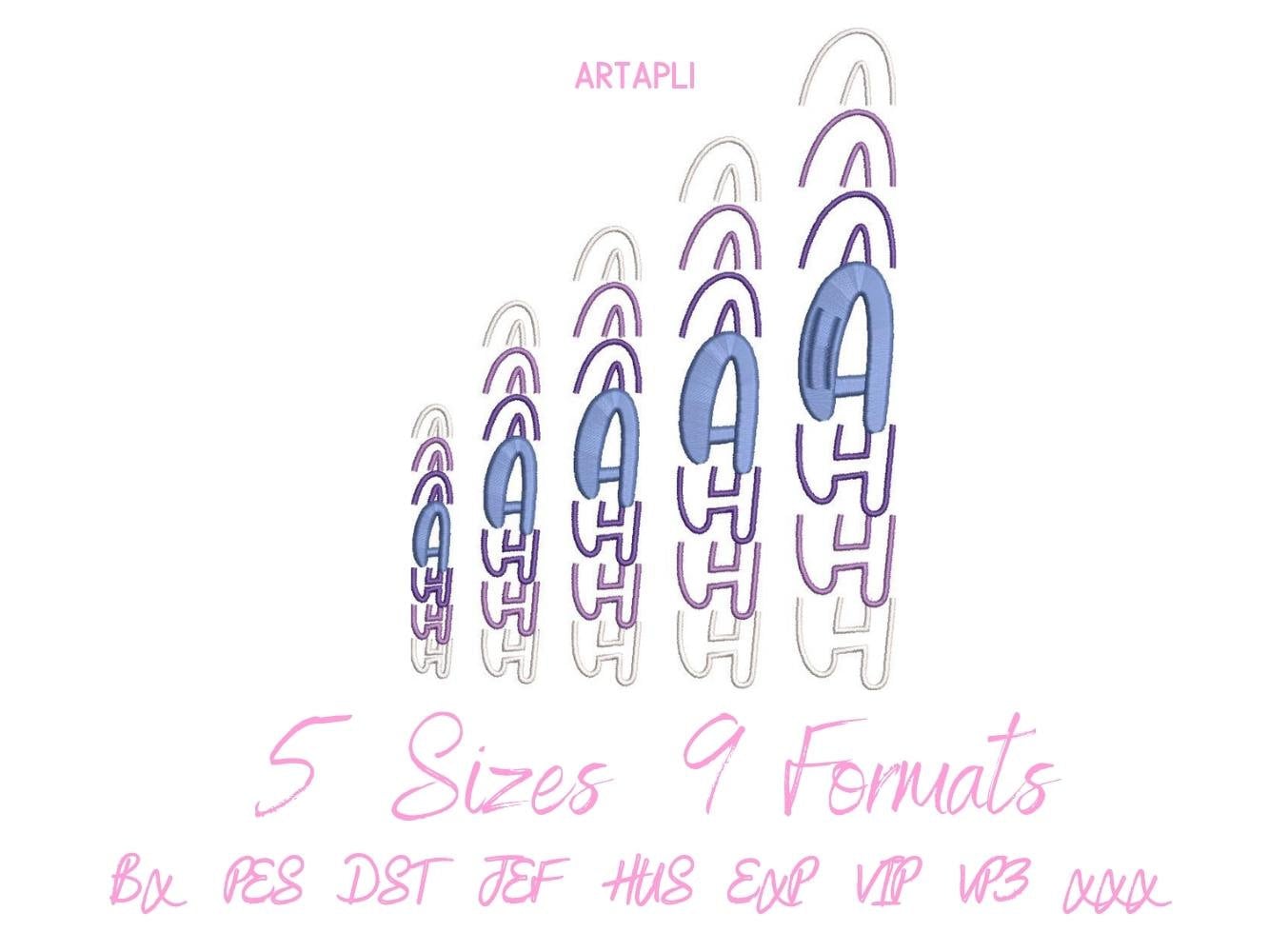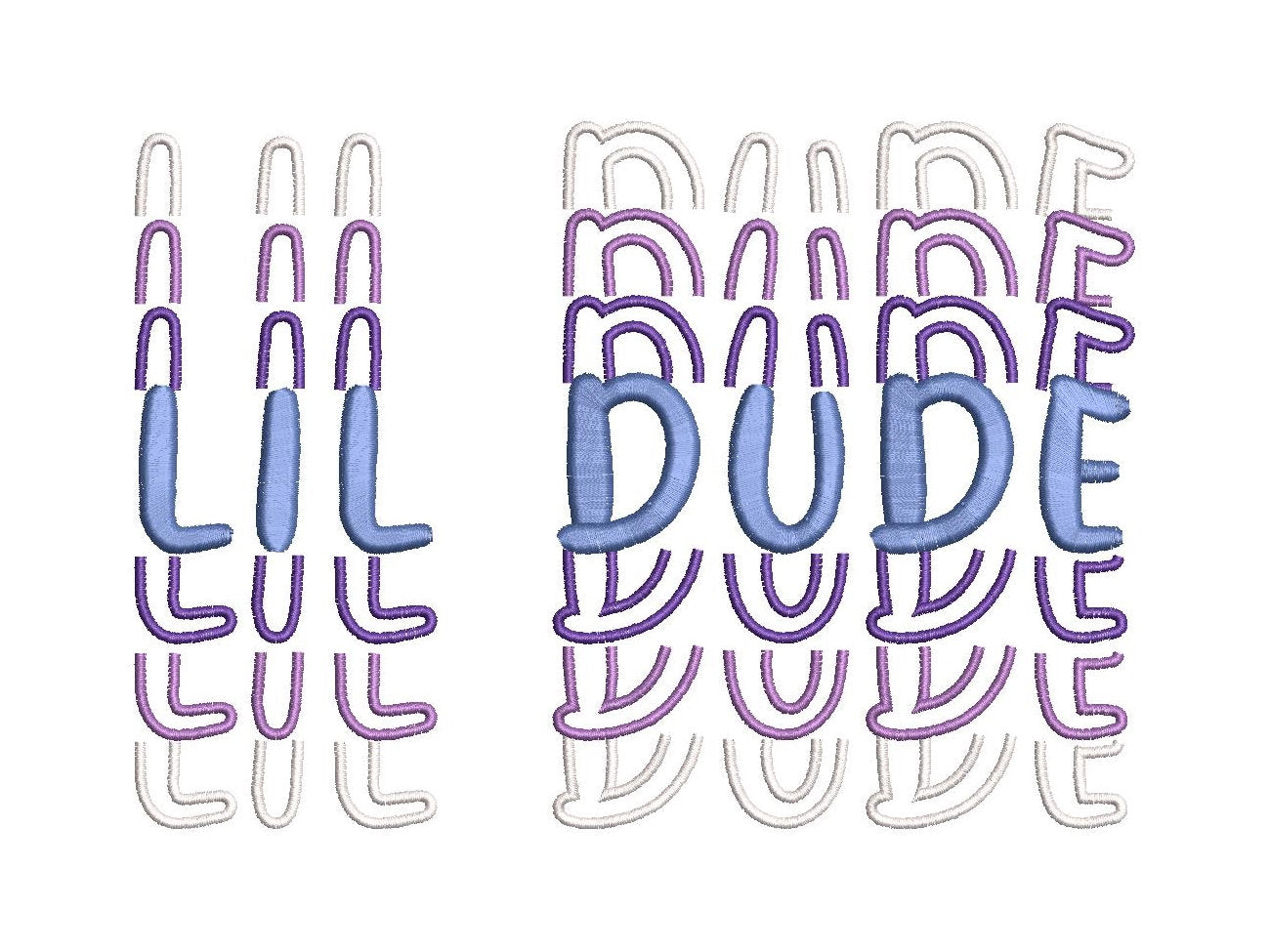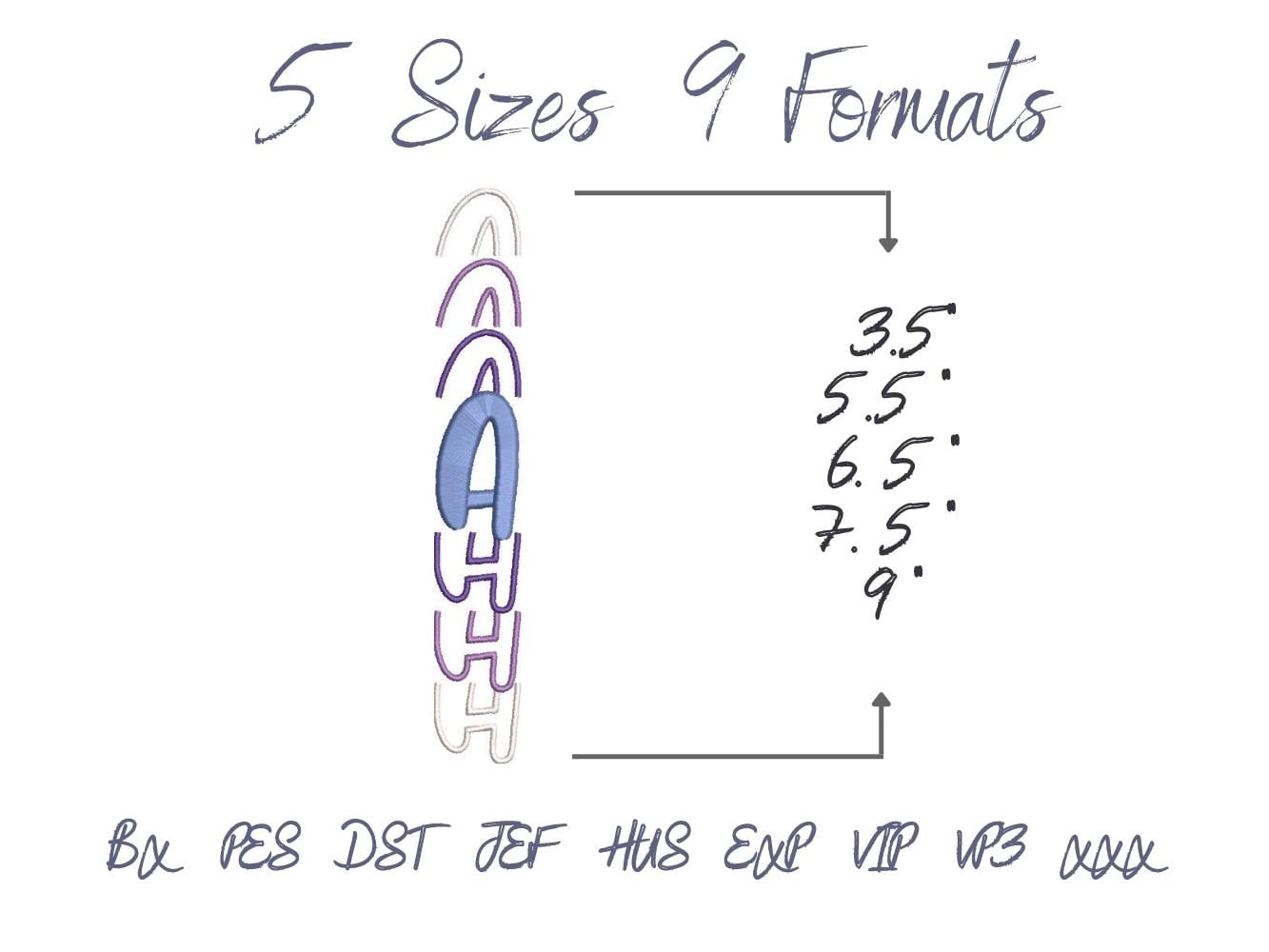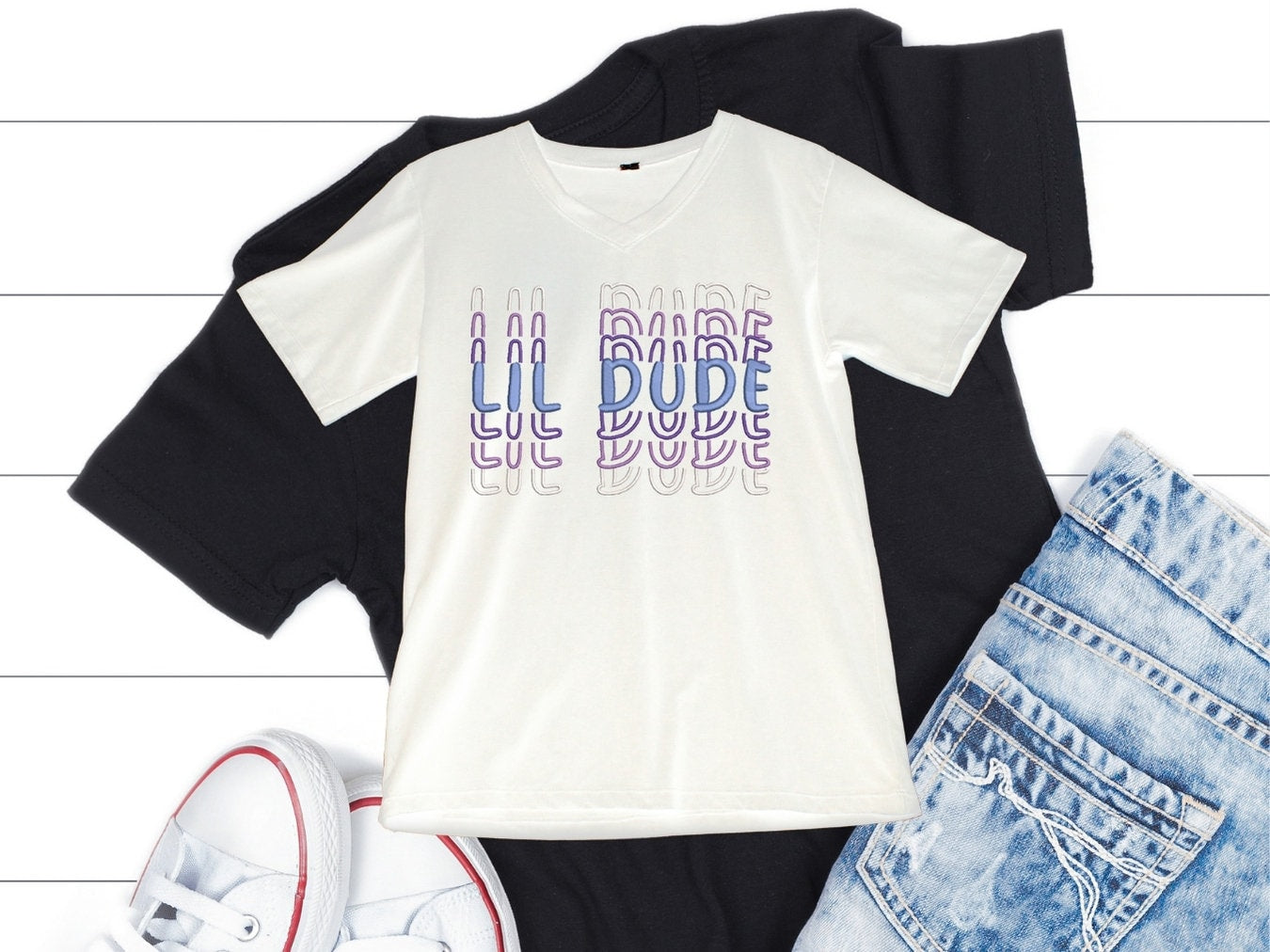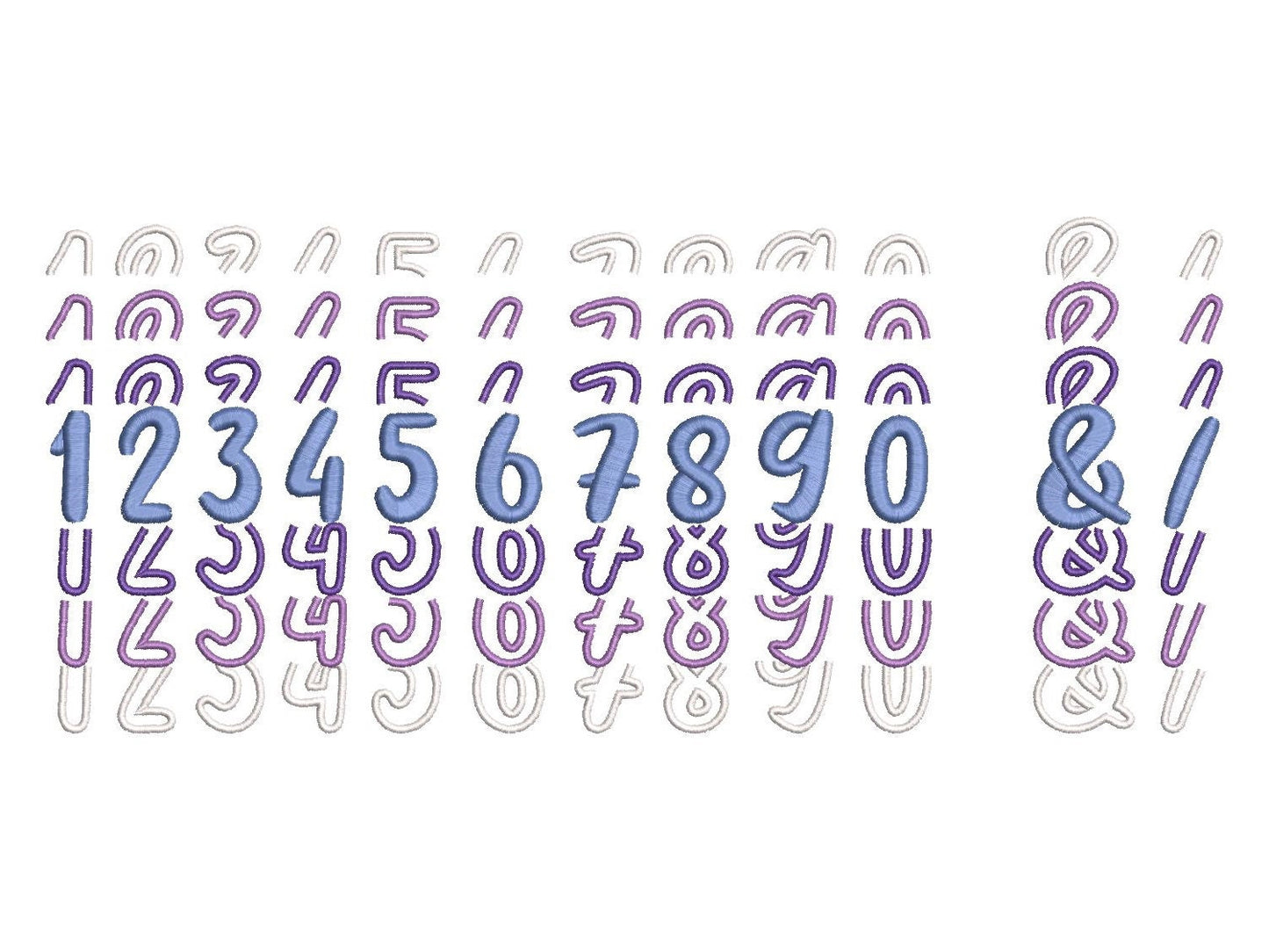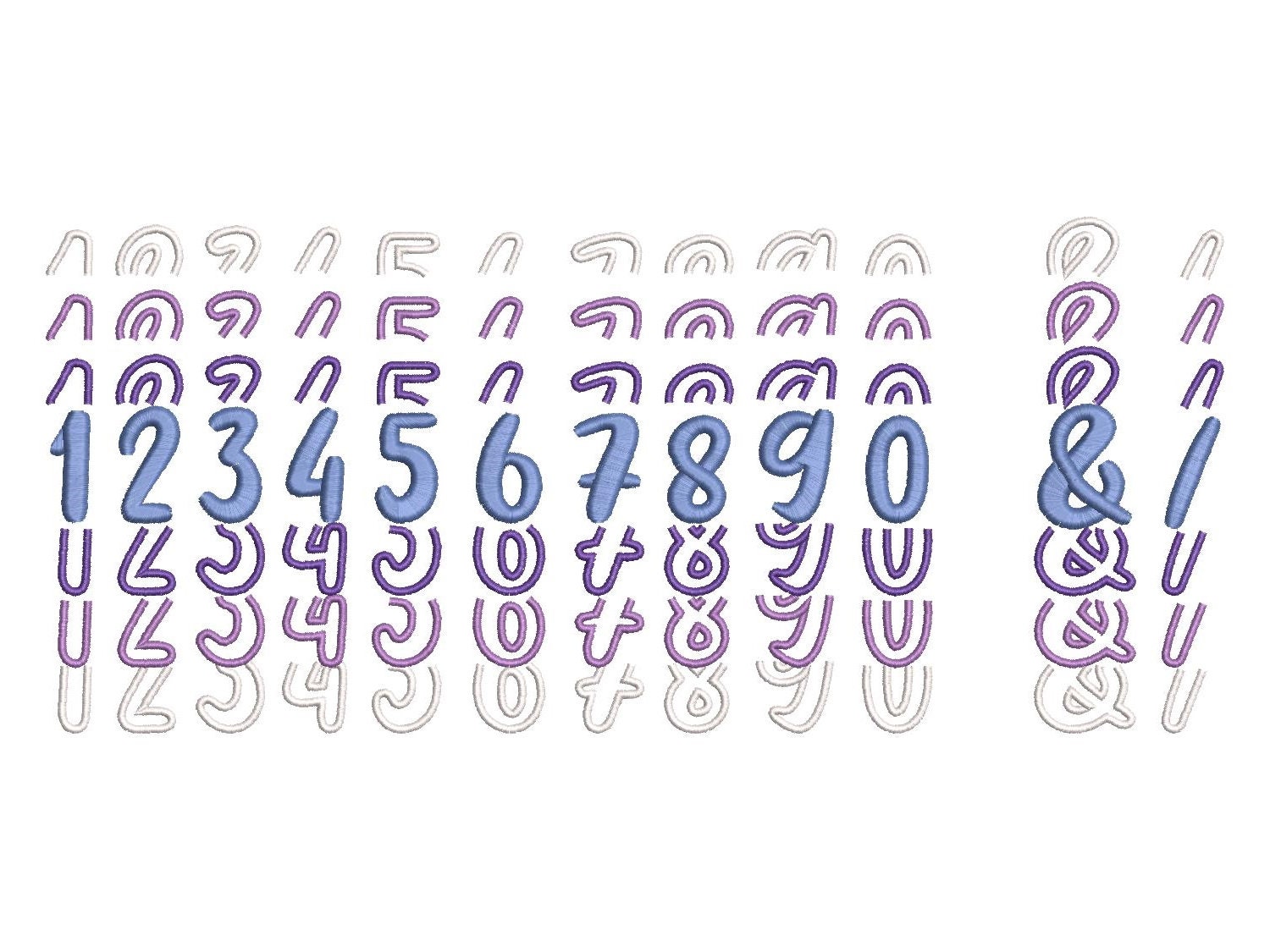
Stacked Satin Stitch Fancy Font
Uppercase letters A to Z, numbers 0 to 9, an ampersand and a dash, in five sizes: 3.5, 5.5, 6.5, 7.5 and 9 inches.
- Stacked satin stitch fancy font
- Uppercase A-Z, numbers 0-9, & -
- 5 sizes, 3.5 to 9 in